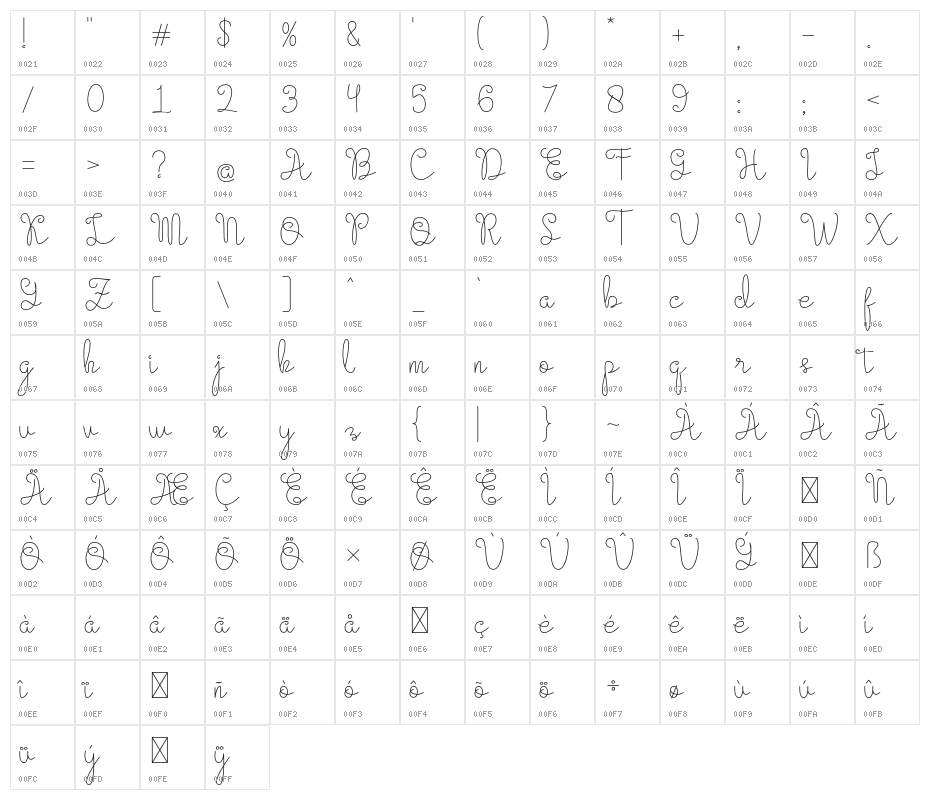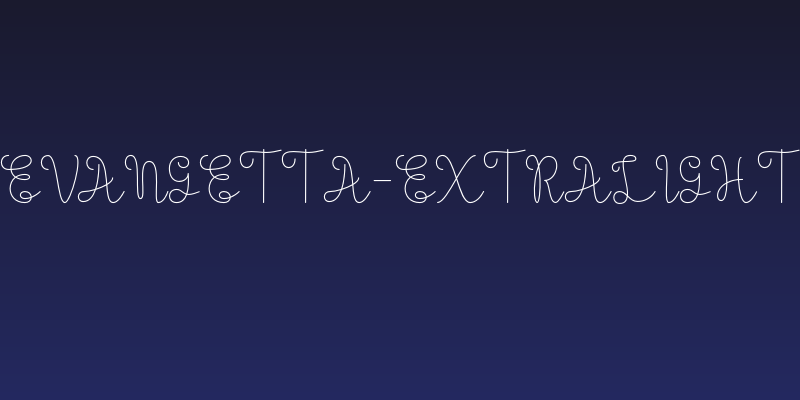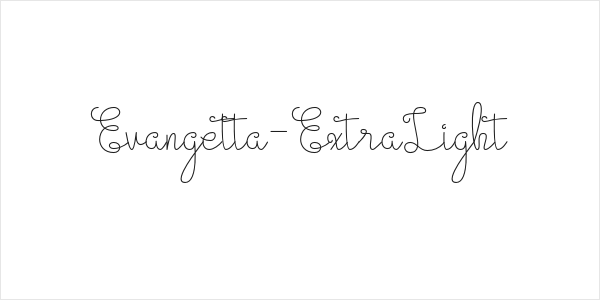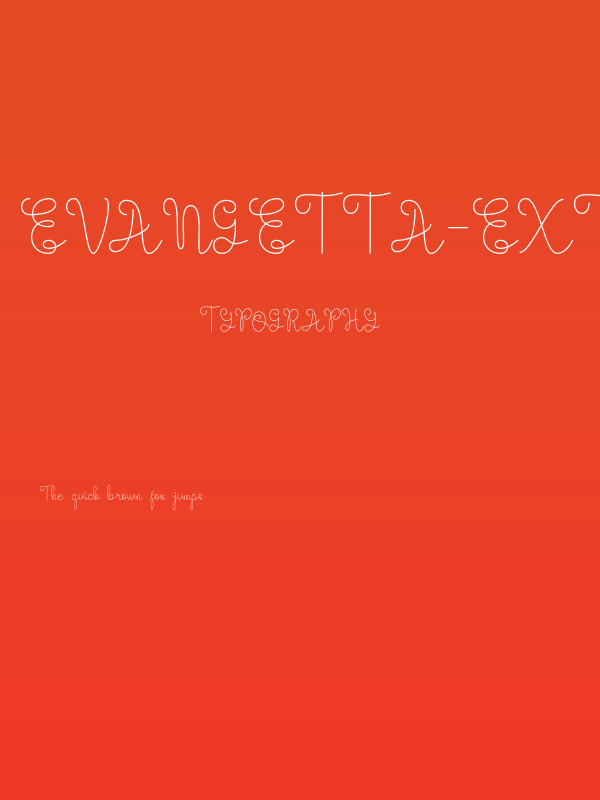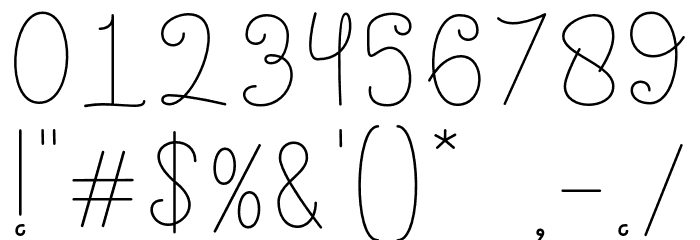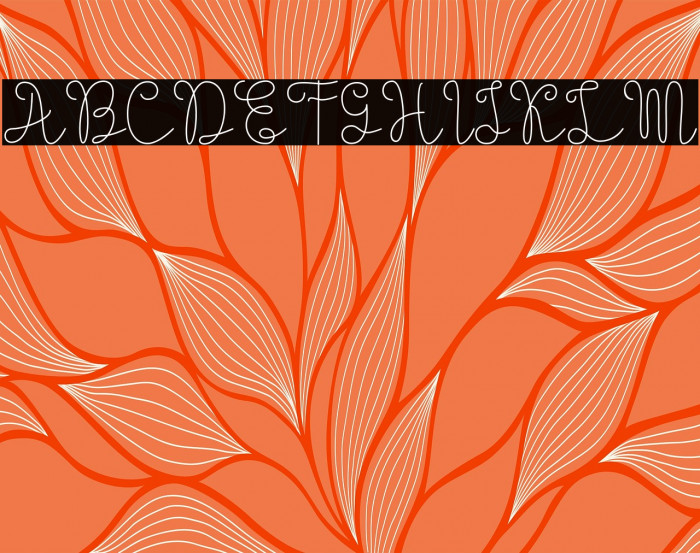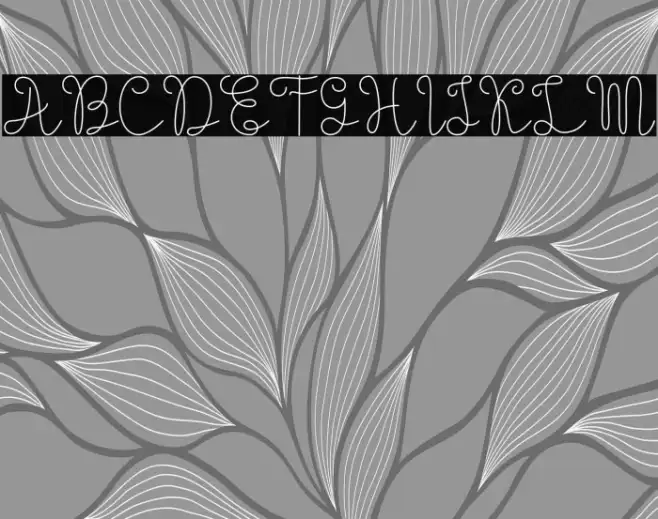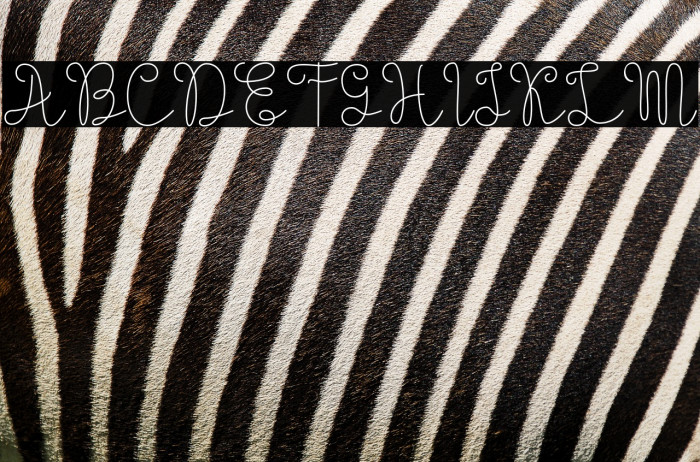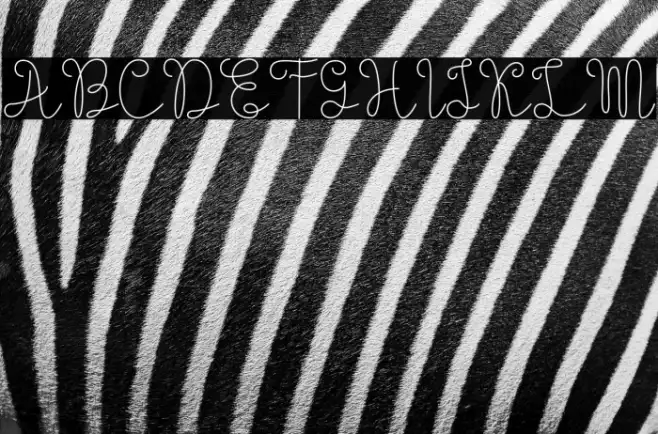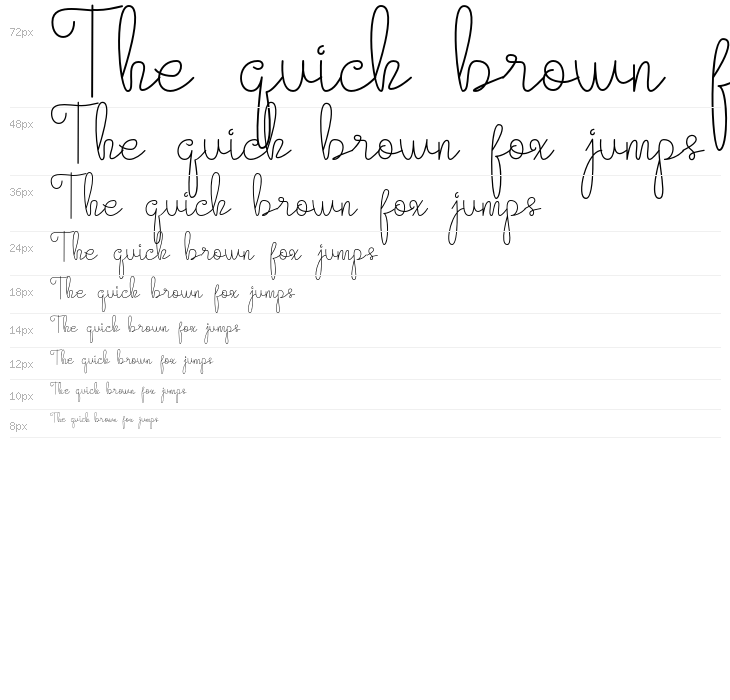
Evangetta-ExtraLight Font
Evangetta-ExtraLight Description
This font features a delicate and flowing script style with a whimsical touch. Each character is crafted with a continuous, looping line that gives it a hand-drawn appearance. The uppercase letters are elegantly curved, while the lowercase letters maintain a consistent fluidity, enhancing the font's graceful aesthetic. The numerals and special characters are designed to complement the overall style, maintaining the same thin, airy strokes. This font exudes a sense of elegance and charm, making it ideal for projects that require a personal and artistic touch.